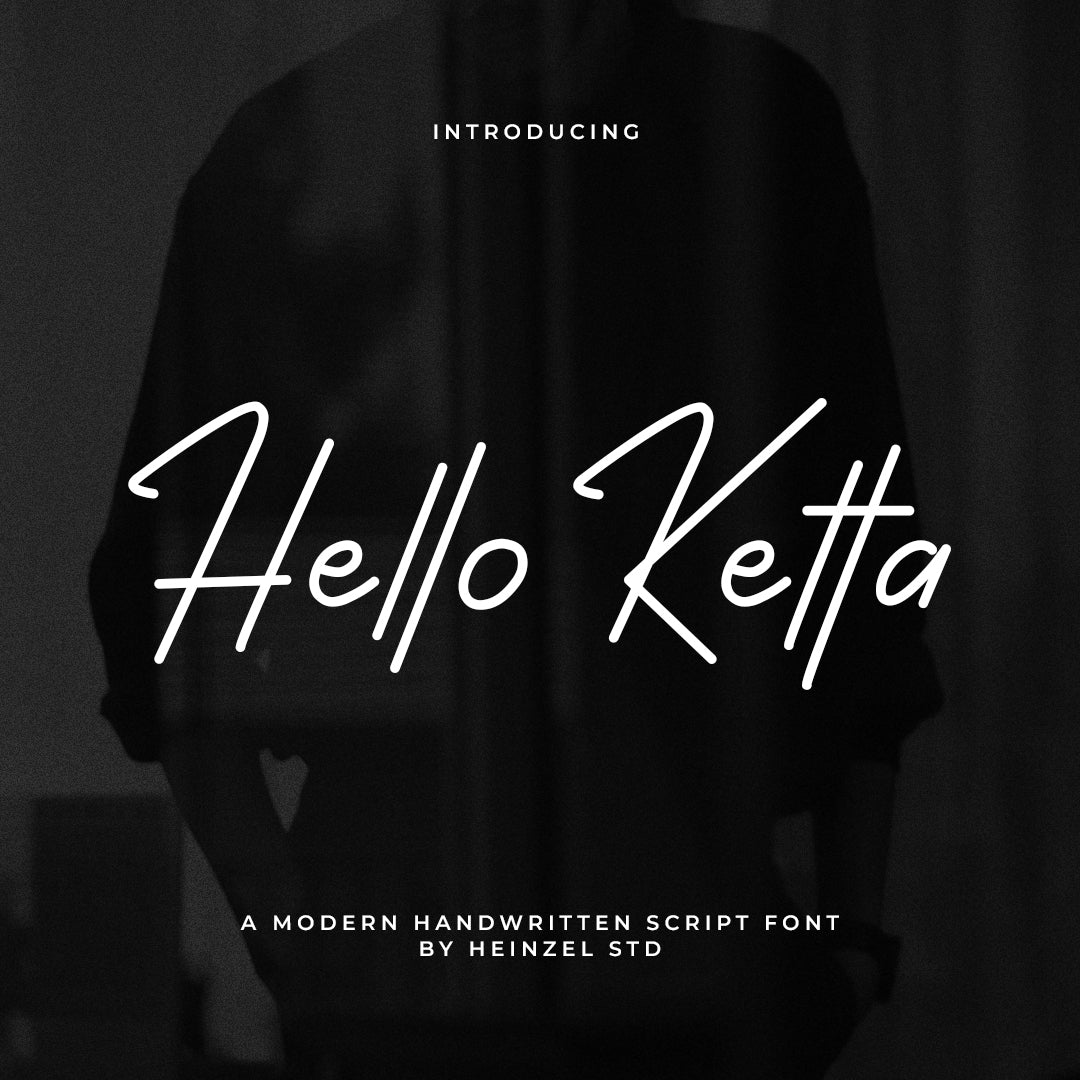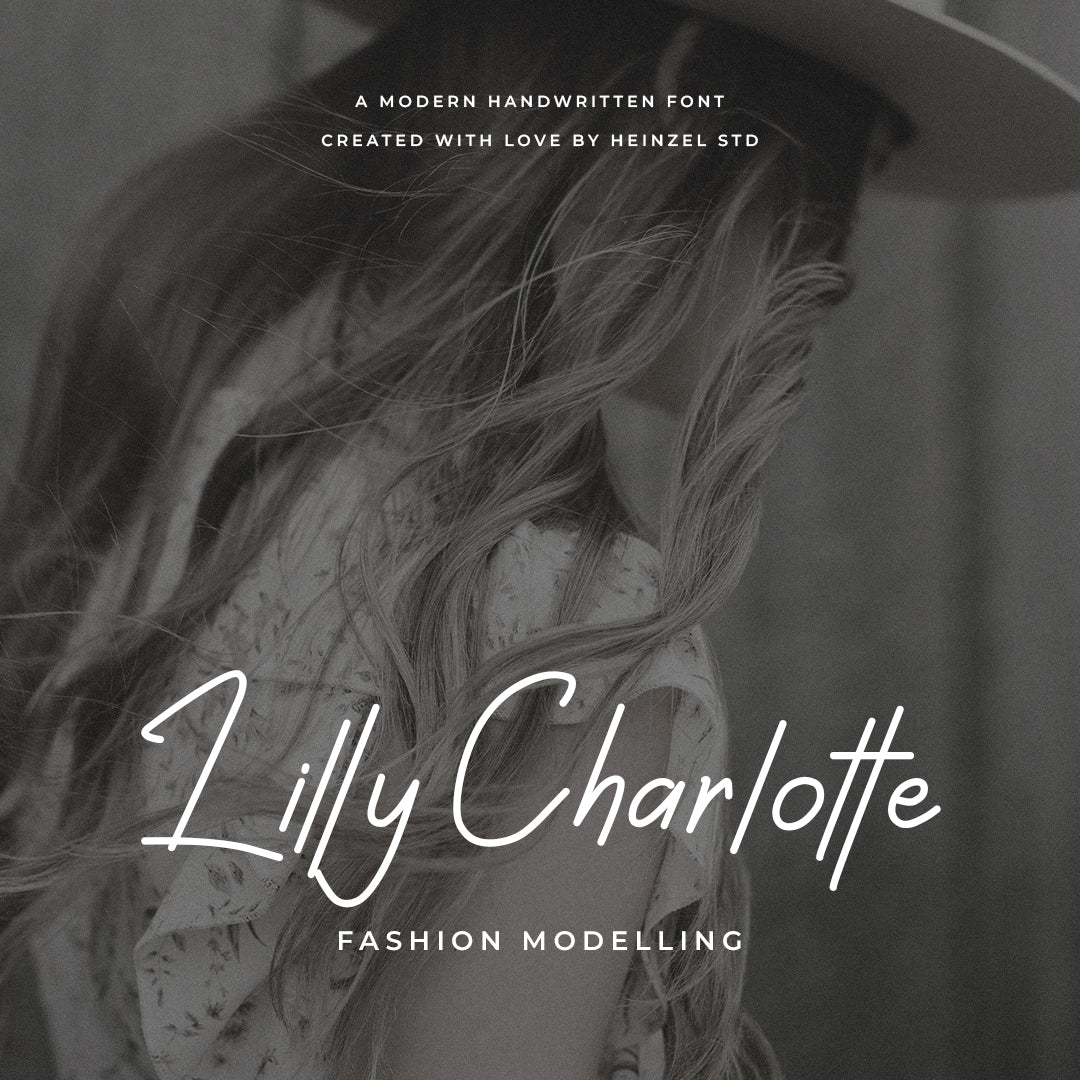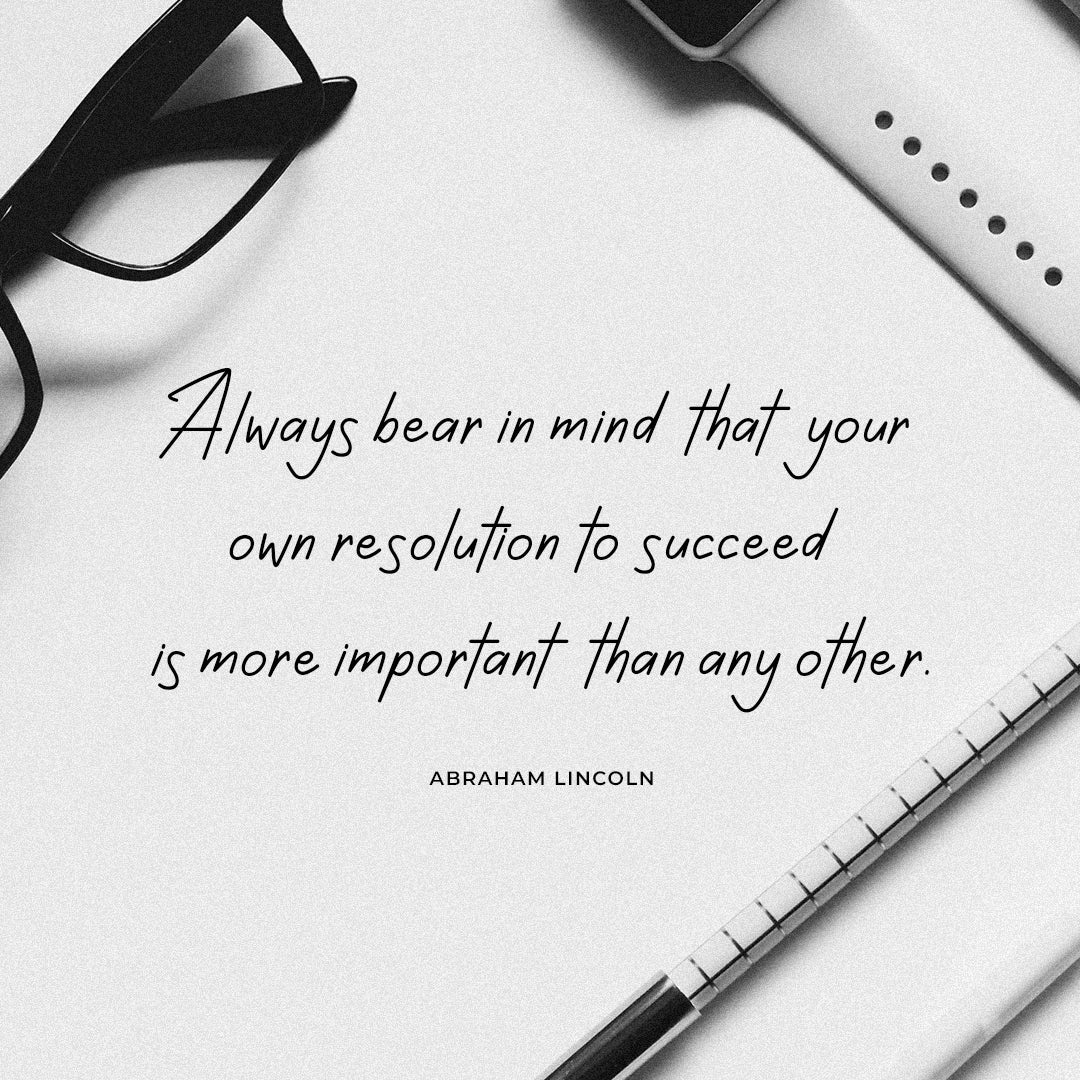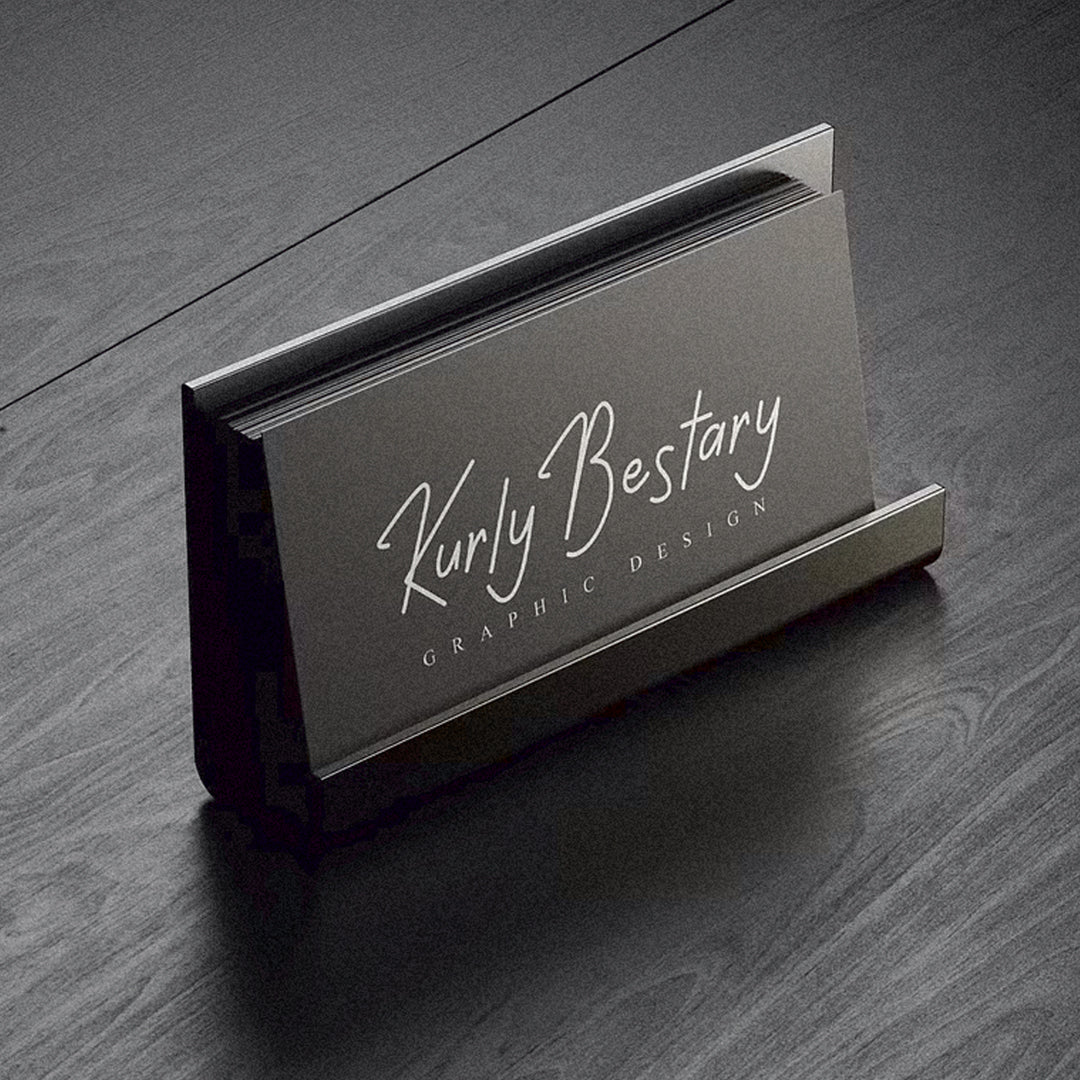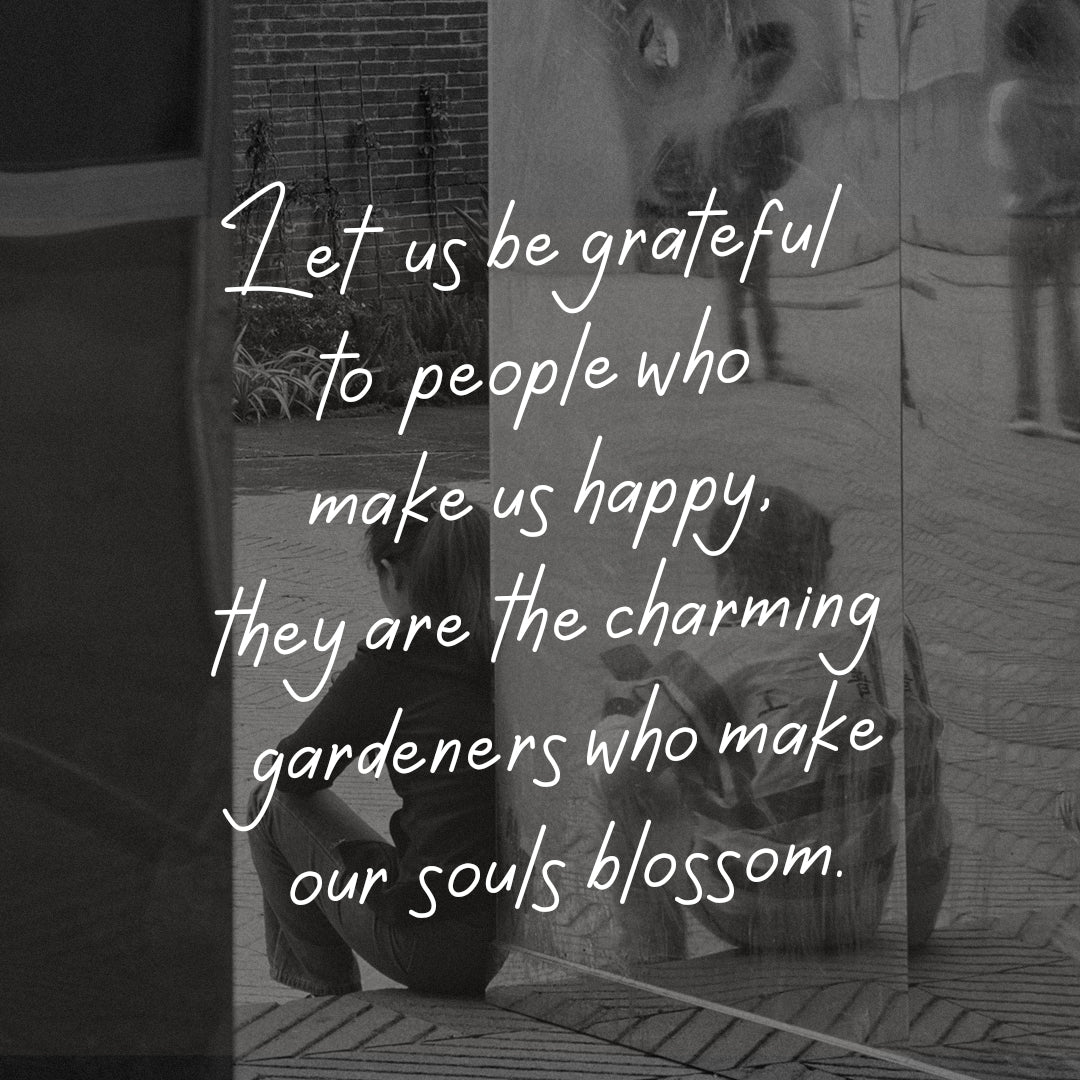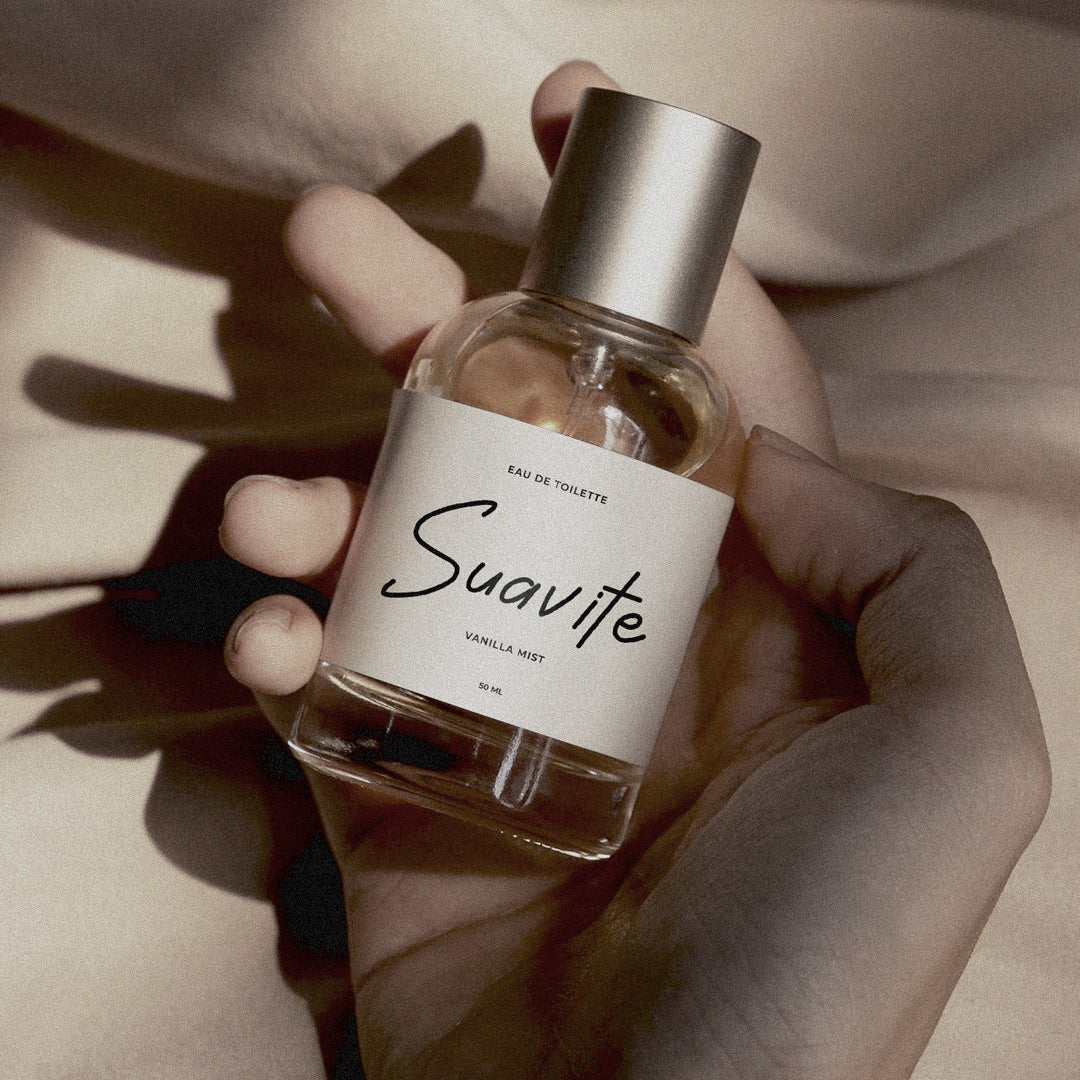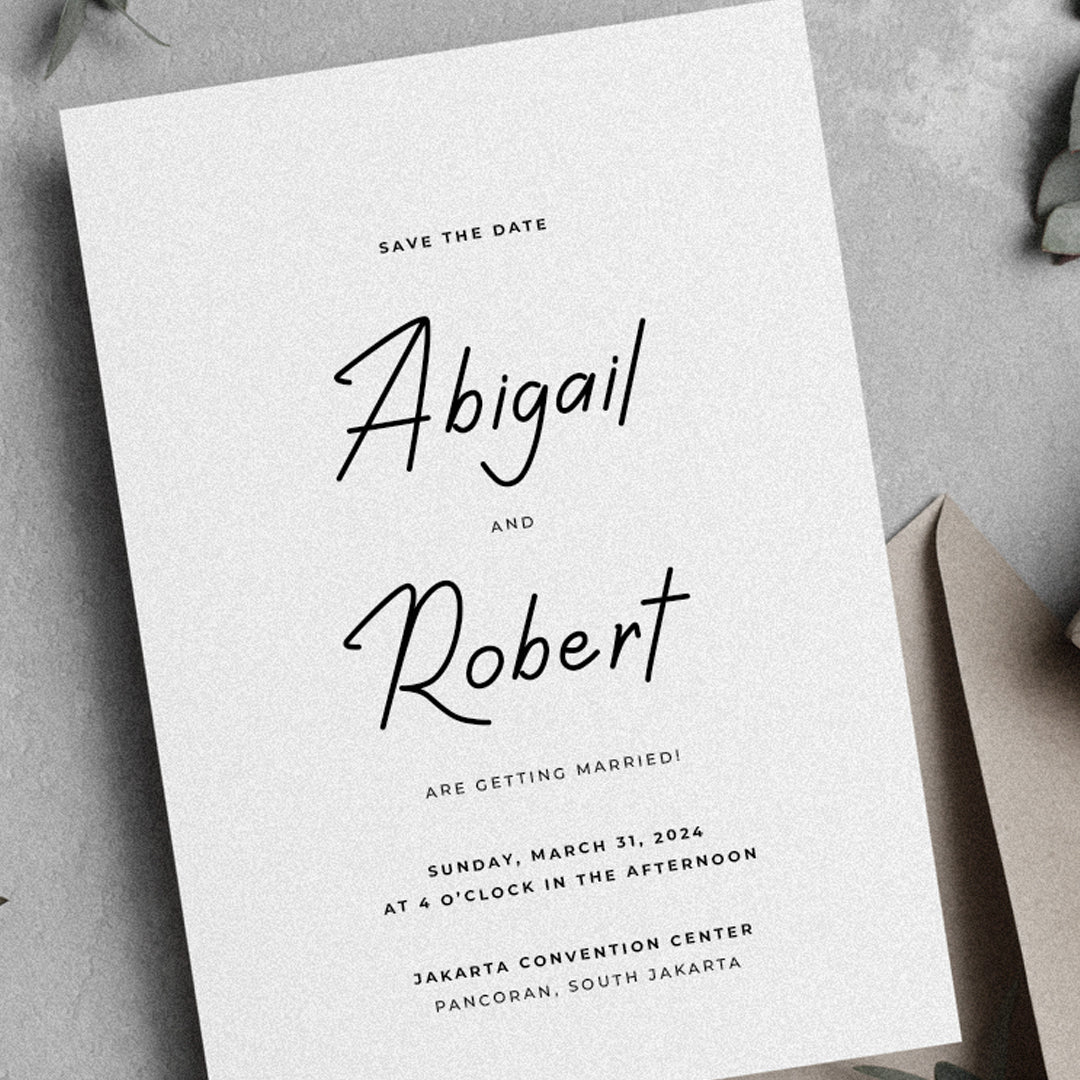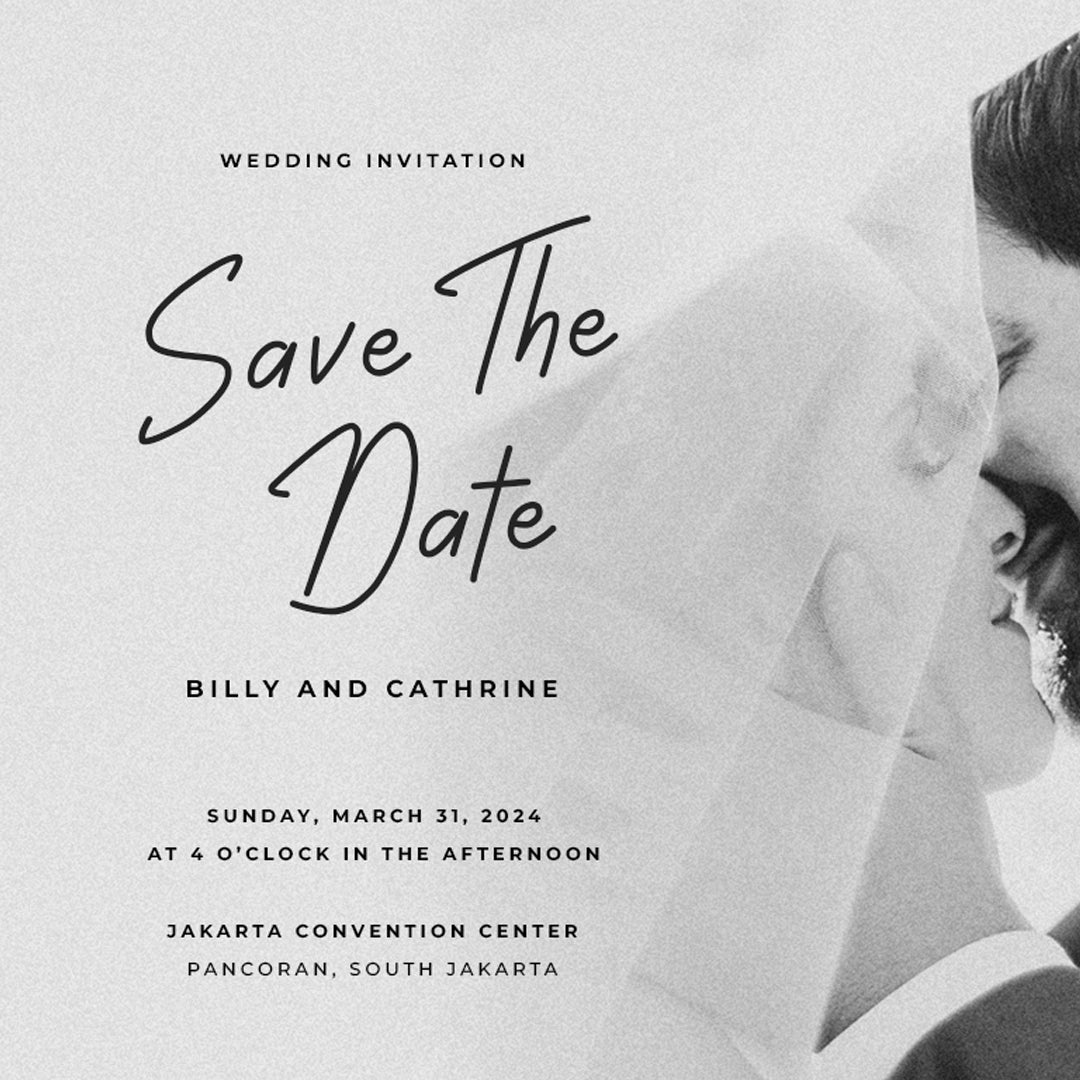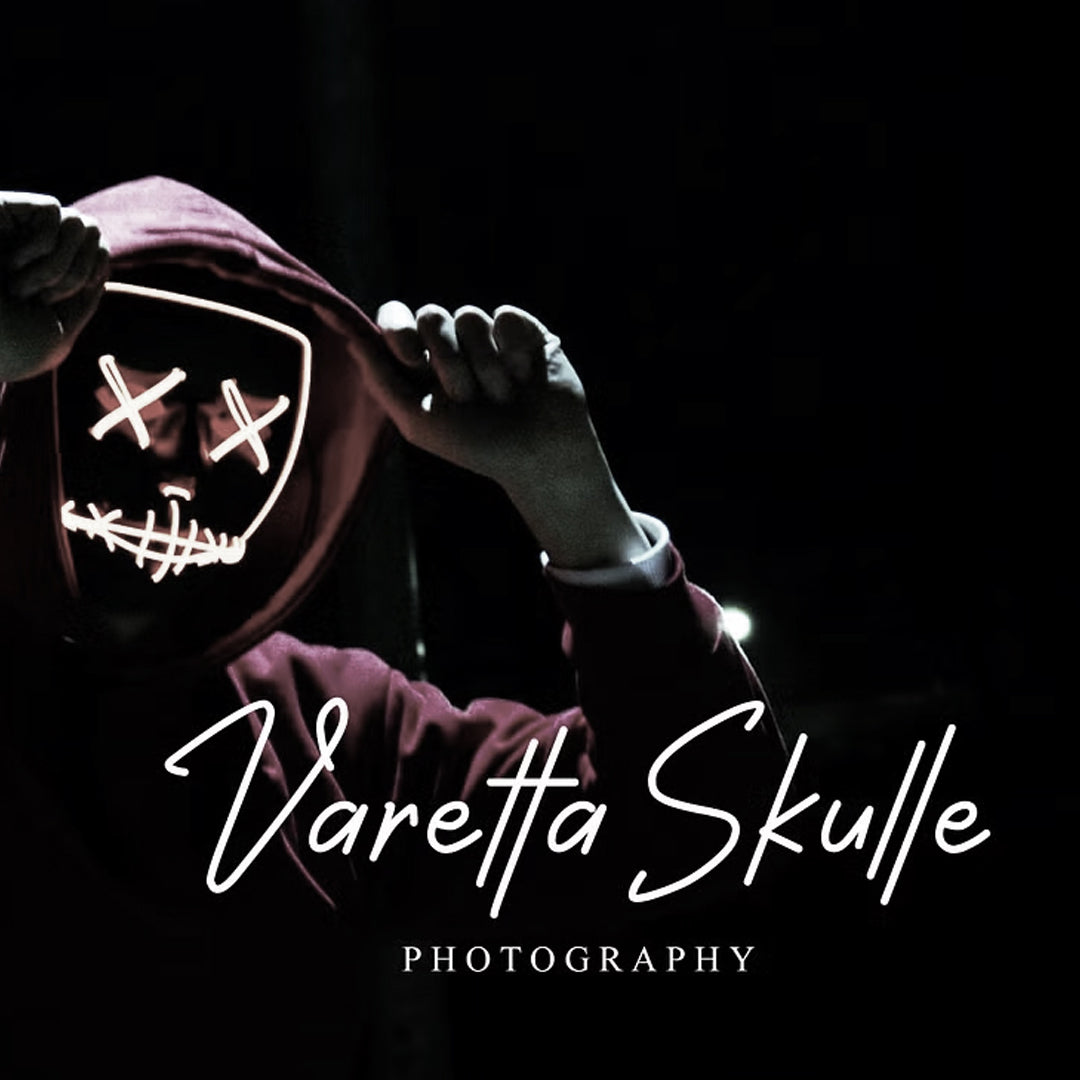
Hello Ketta Handwritten Font
Hello Ketta is a modern handwritten script font designed to bring a natural, stylish, and expressive personality to your creative projects. With its flowing strokes, elegant letterforms, and authentic handwritten character, Hello Ketta creates a beautiful balance between casual charm and sophisticated script typography.
Hello Ketta is a handwritten script font featuring flowing strokes and connected letterforms. It includes standard script typography with a casual, signature-style appearance.